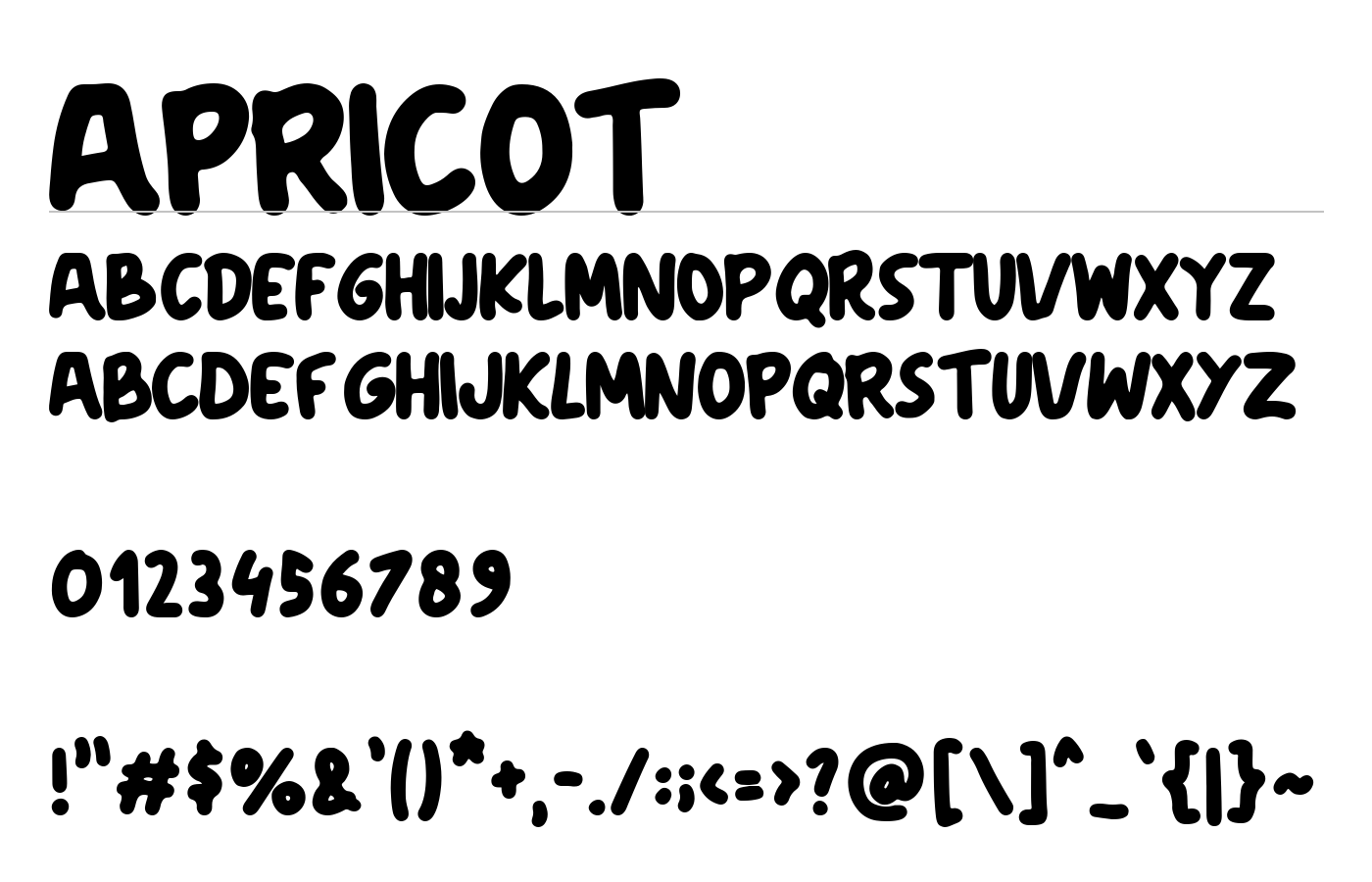
Apricot Font is a bold, playful sans serif with a hand-drawn, rounded style that feels friendly and casual. Its thick strokes and lively, slightly irregular shapes give it a warm, approachable personality, making it perfect for children’s materials, informal branding, or fun headlines where a relaxed and cheerful tone is desired. This font works well in creative projects that need a sense of joy and spontaneity without sacrificing readability.
Apricot Font
About Apricot Font
| Font family | Apricot Font |
| Designer | Lady Hanna |